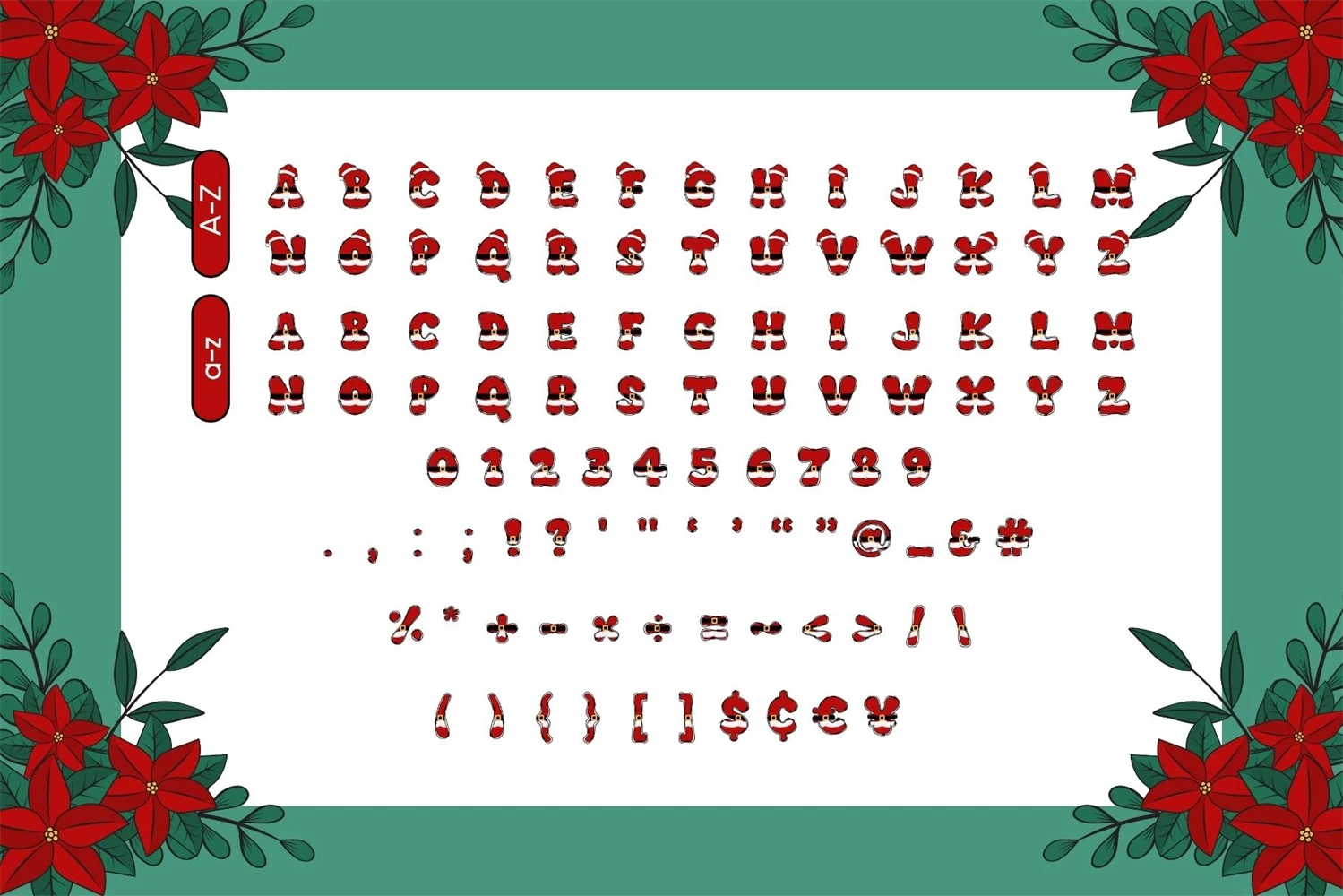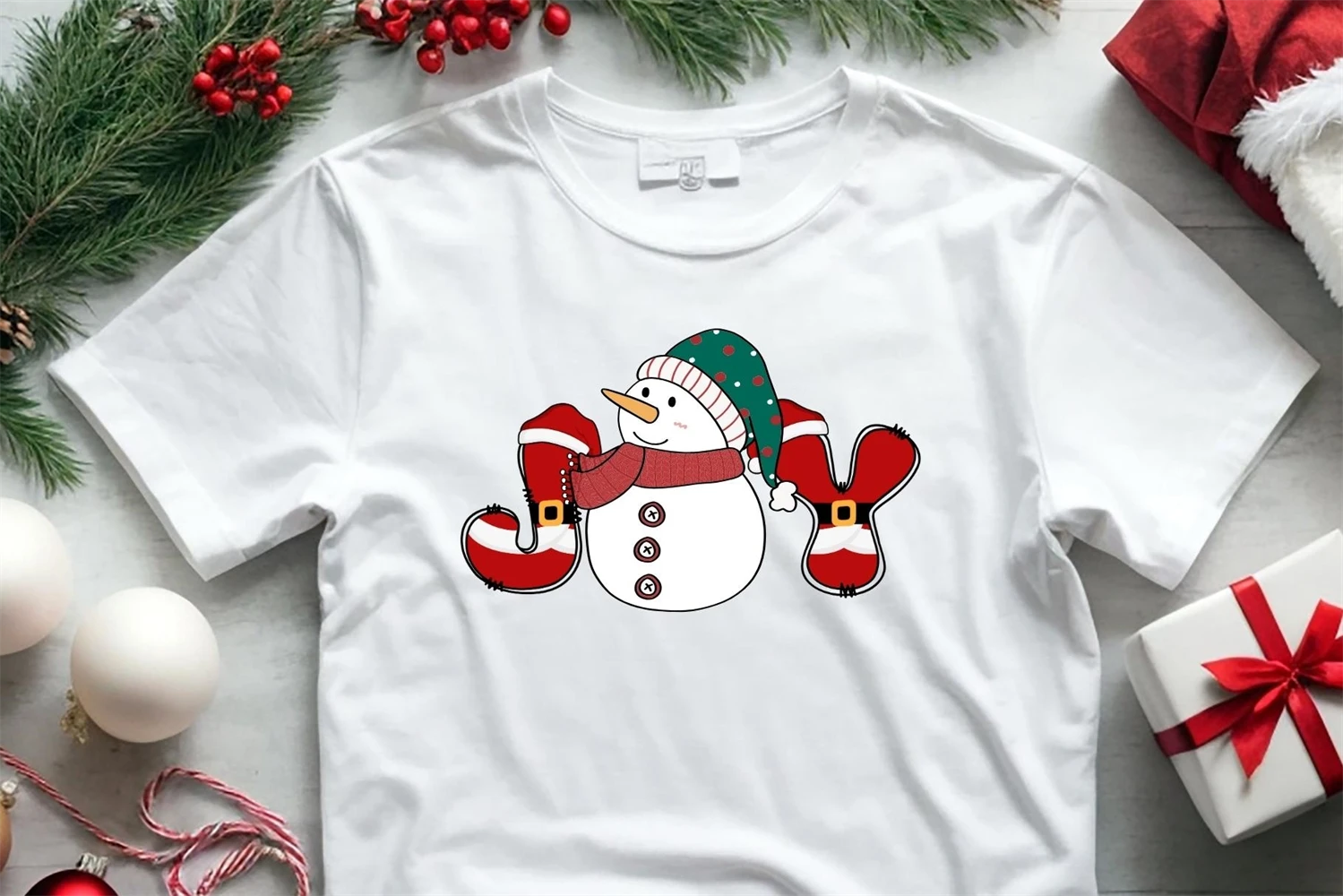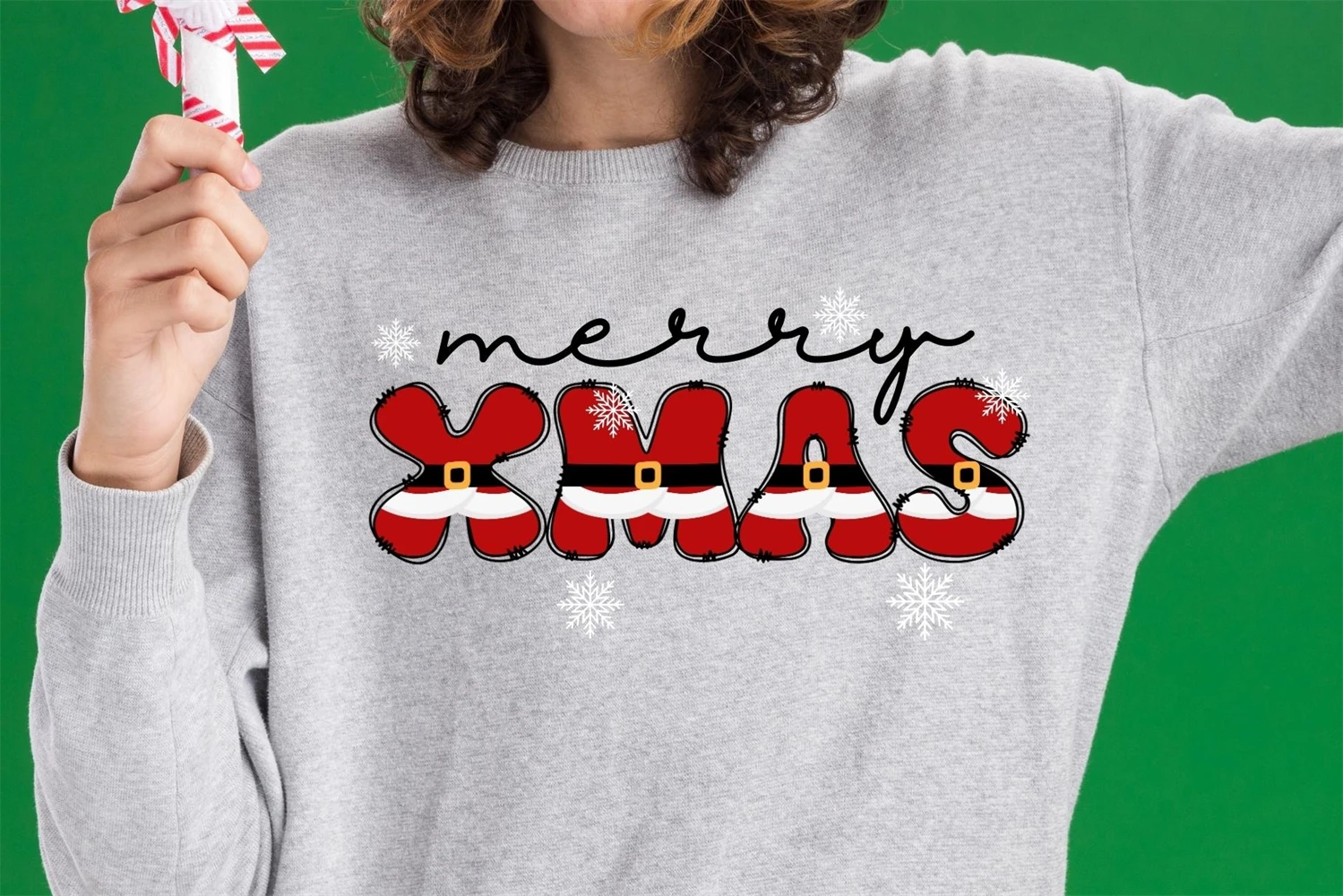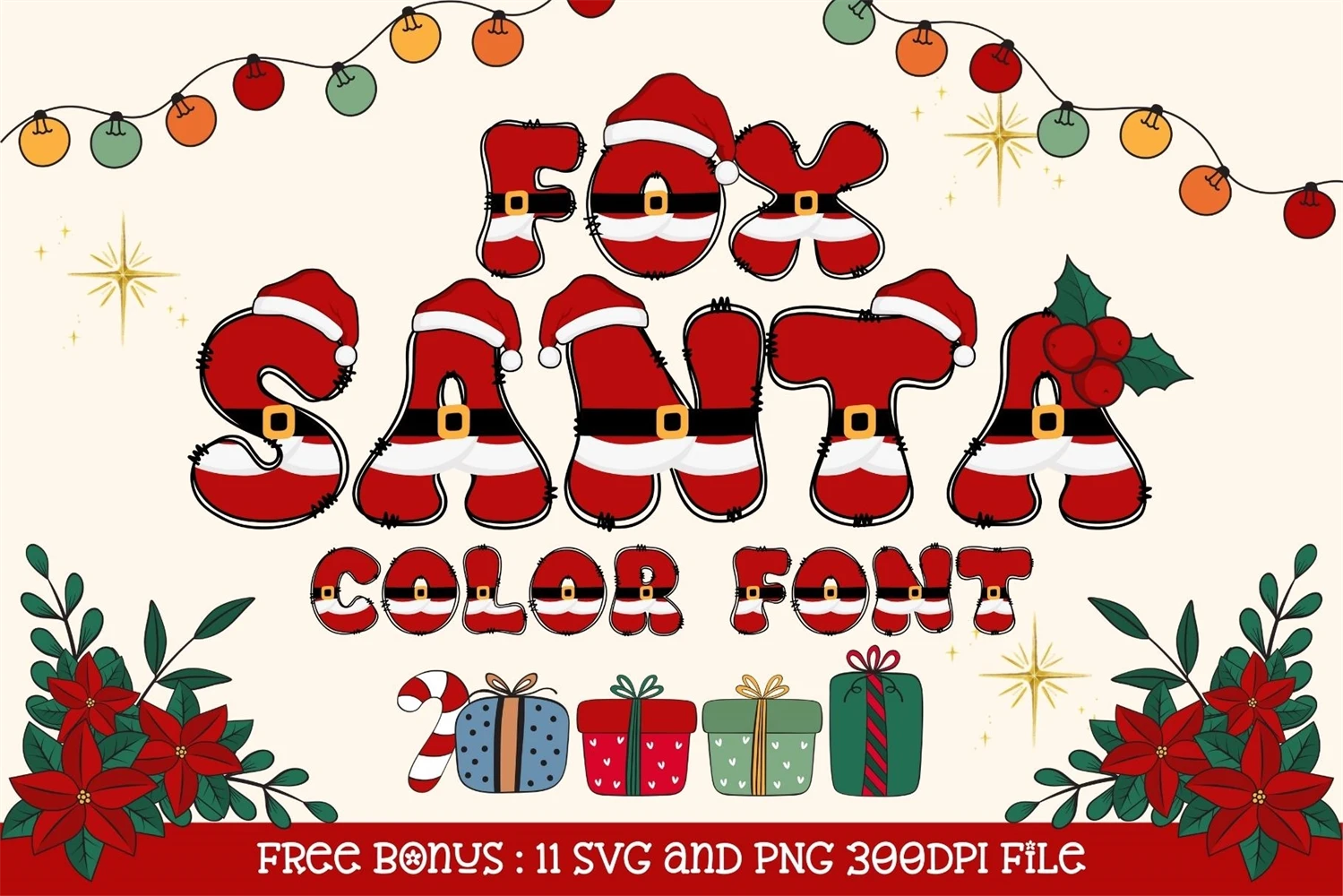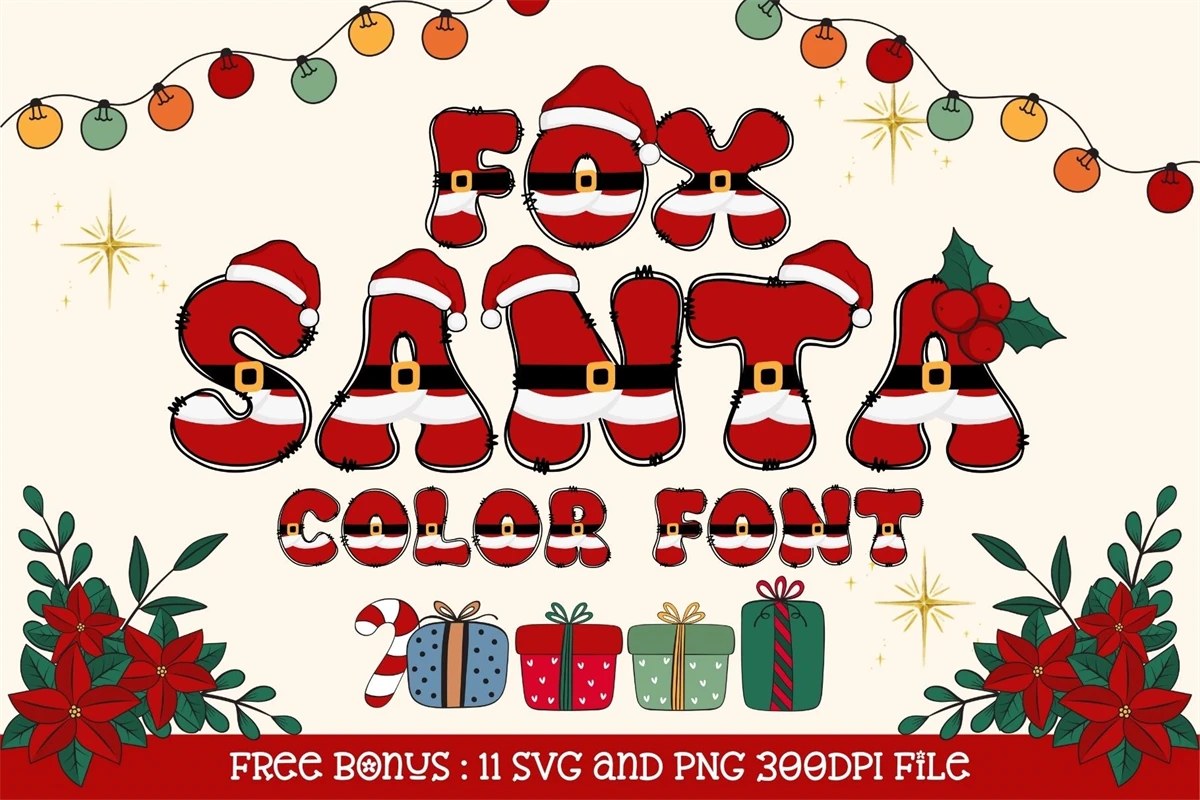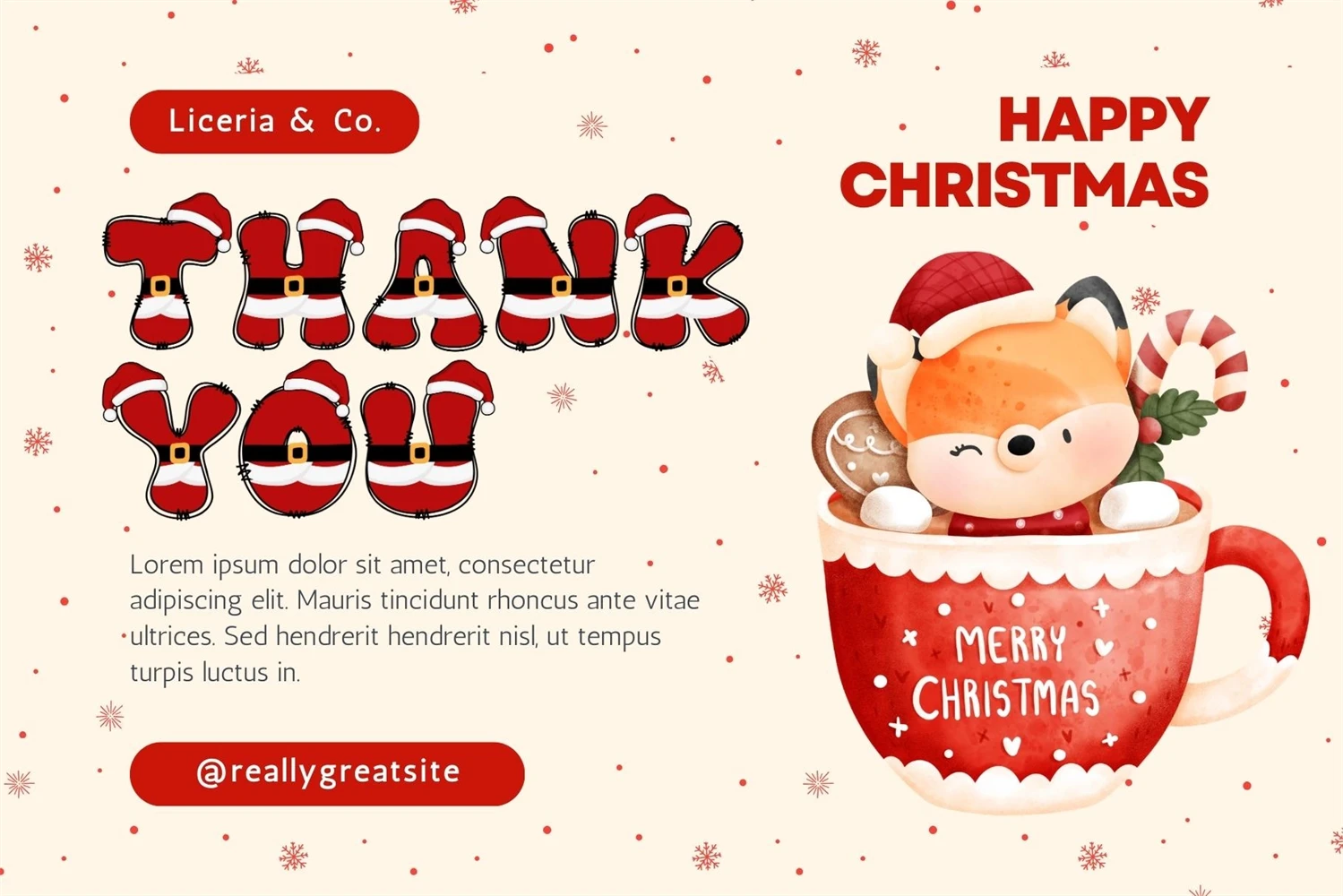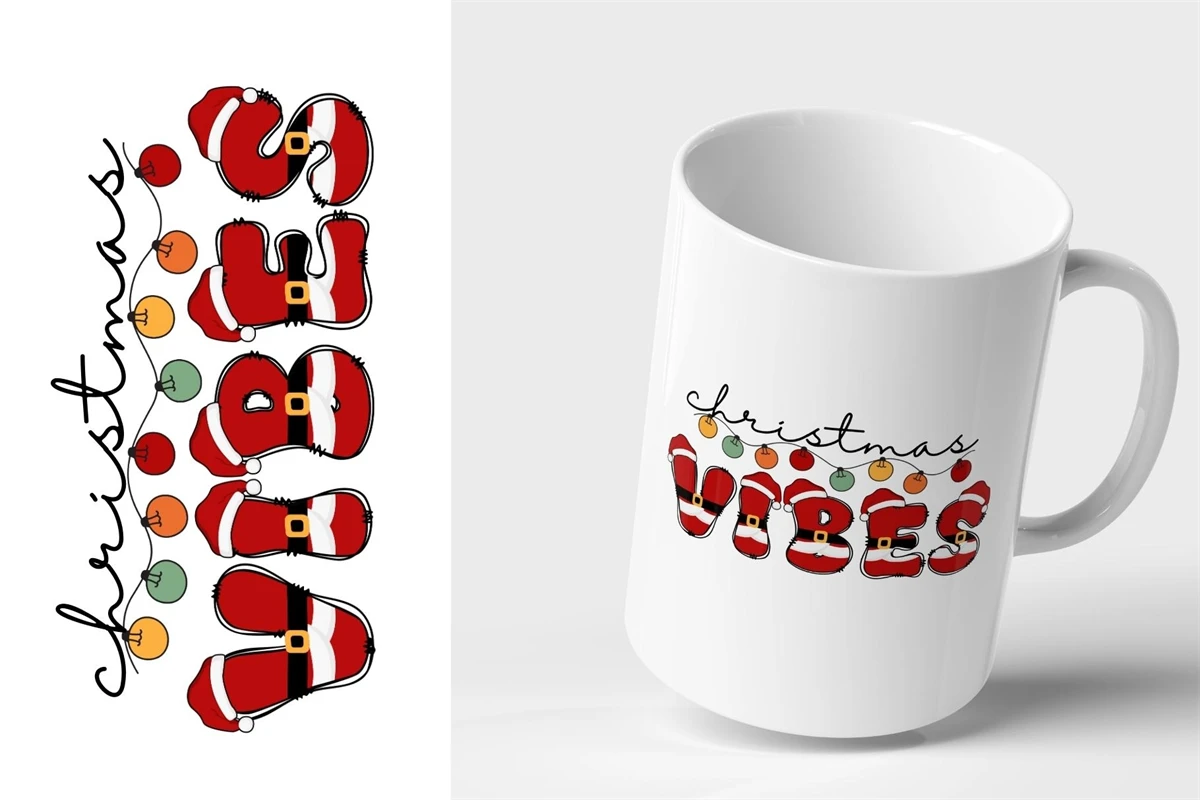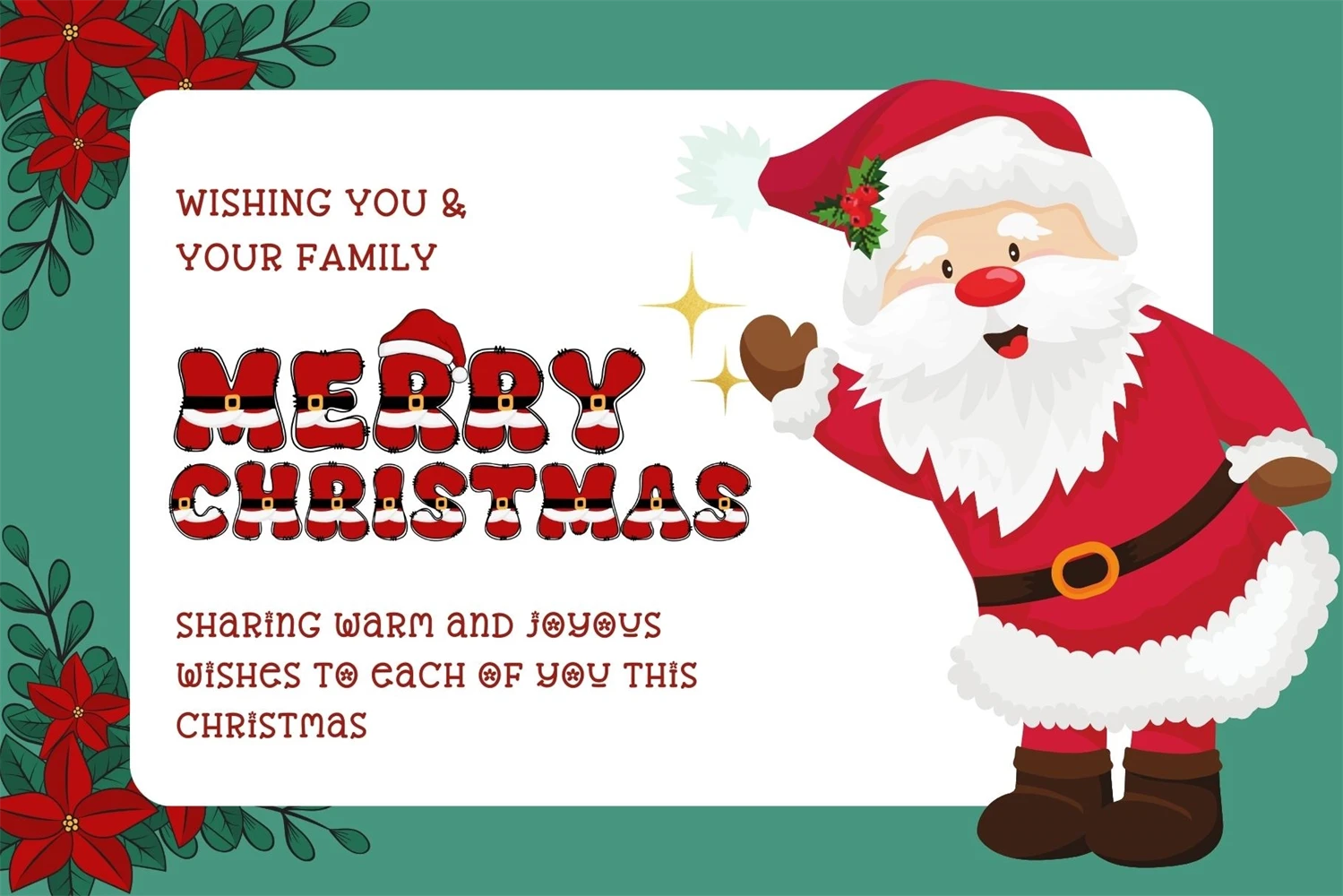
Elevate your holiday designs with the whimsical charm of our Fox Santa Font. This delightful font is specially crafted to infuse your projects with the joyful spirit of Christmas, featuring a jolly old Santa Claus complete with a festive Santa hat on top for every letter from A to Z. With its playful and decorative style, Fox Santa Font is the perfect addition to your holiday-themed creations, whether it's greeting cards, posters, banners, invitations, or any design that needs a touch of holiday cheer.